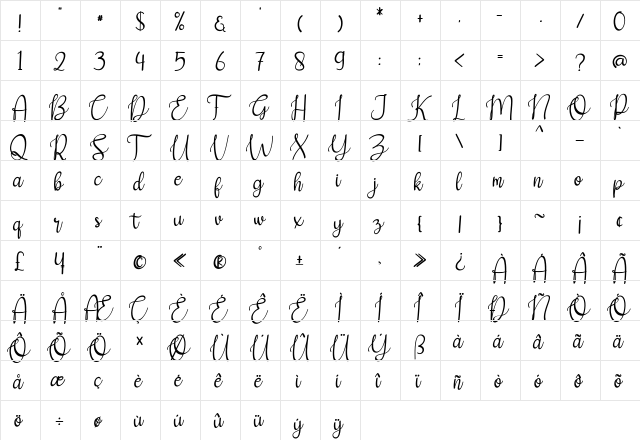
New Christmas Regular
| Foundry | dianhaniff |
| Designer | dianhaniff |
Design Context for New Christmas Typeface
New Christmas takes a measured approach to typography — its balanced proportions and neutral character make it a reliable workhorse for both digital and print work.
Pro Tip: Use New Christmas in both headline and body roles to test its range before committing to a single application.